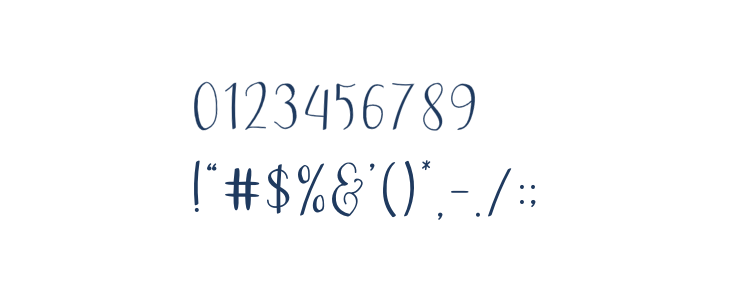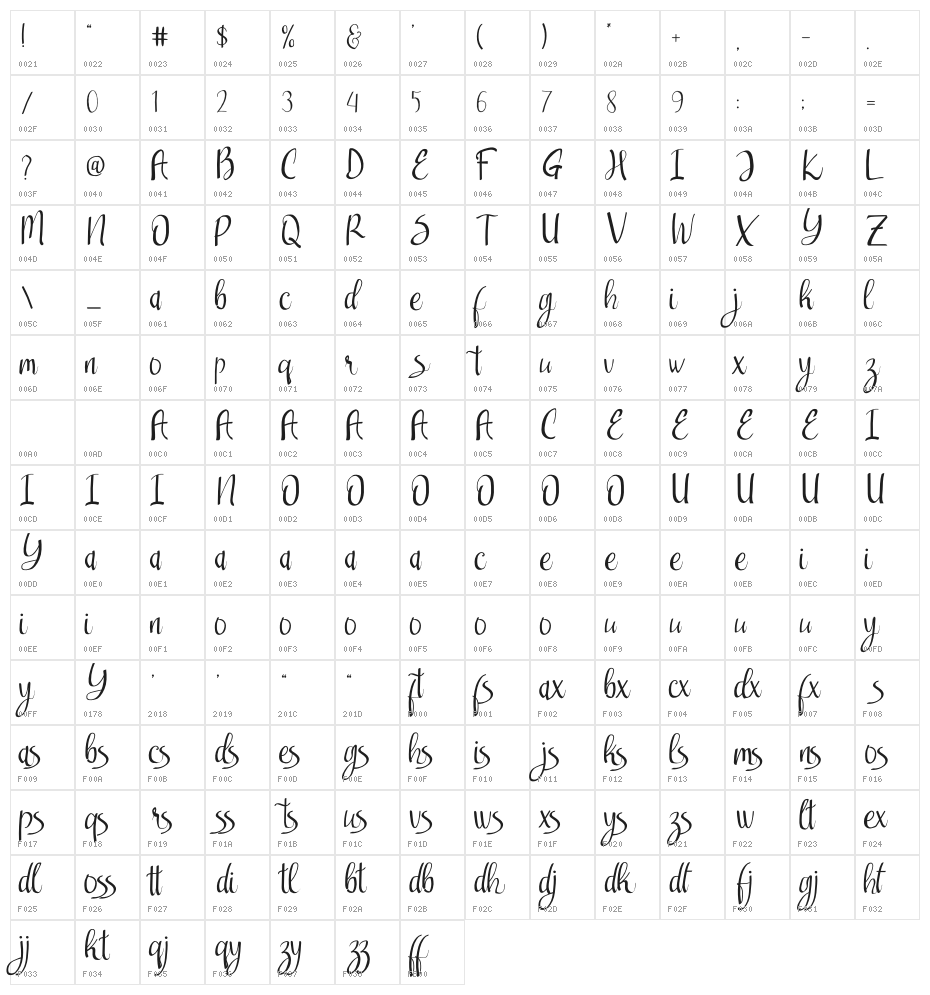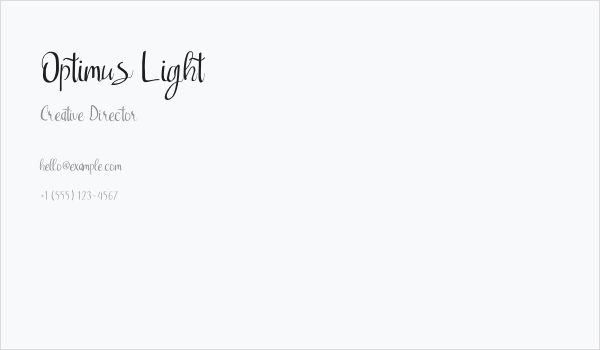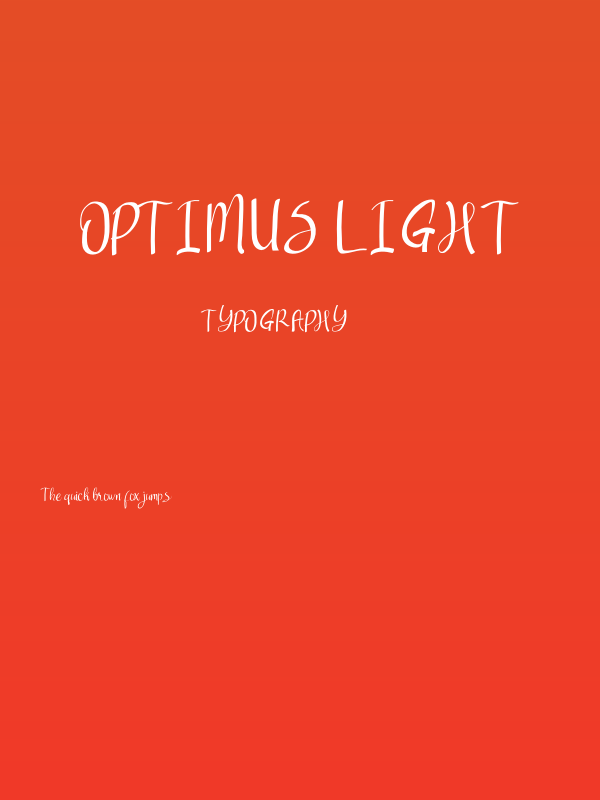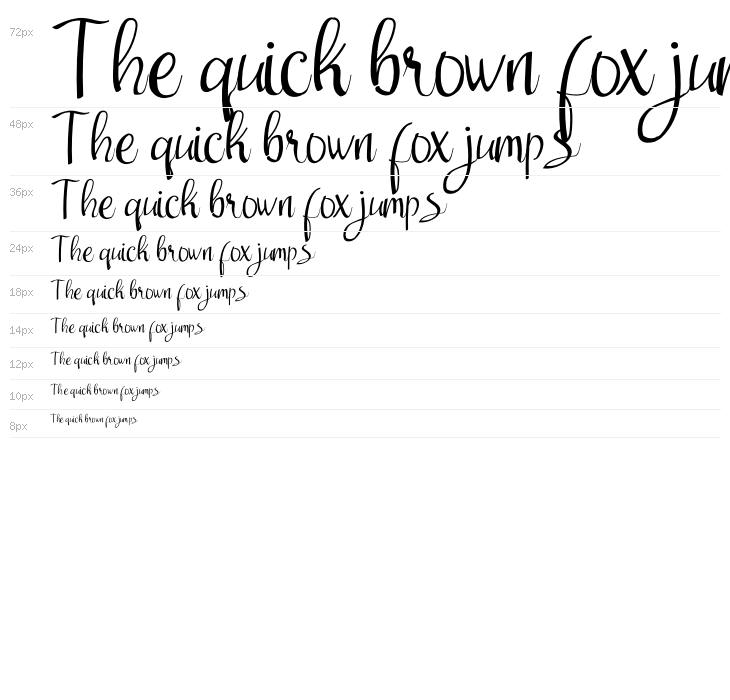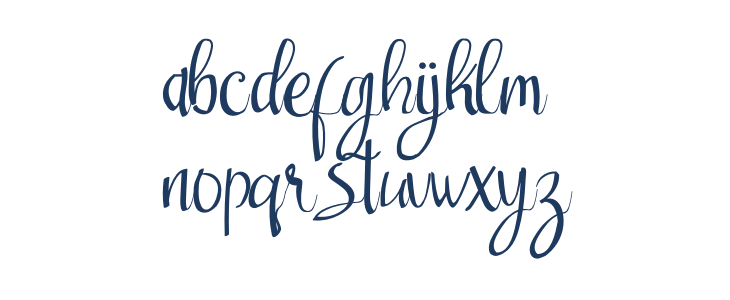
Optimus Light Font
Optimus Light Description
A light, flowing script font with a handwritten appearance, featuring tall ascenders, pronounced loops, and a casual yet elegant style. The strokes are consistent in weight, and the characters have a slightly condensed width with ample spacing.
| Overall Style | Handwritten, Elegant, Casual |
| Use Case | Logos, Invitations, Decorative headings |
| Proposed Projects | Invitations, greeting cards, branding, quotes, social media graphics. |